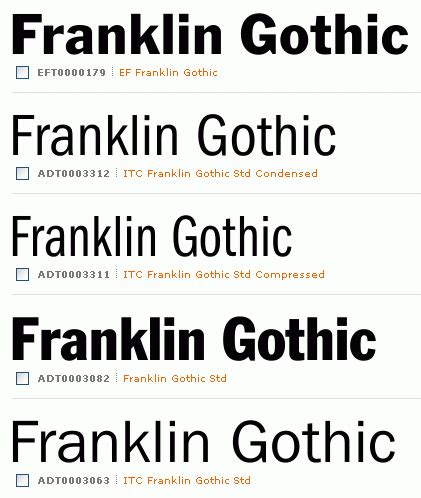
Franklin gothic font family was designed by victor caruso, morris fuller benton and published by itc. The font is available in all formats (itc franklin gothic woff2, itc franklin gothic woff, itc franklin gothic ttf, itc. Download itc franklin gothic for free, view sample text, rating and more on fontsgeek.com. Web individual styles from $57.99. Web the itc franklin gothic is a reimagining of franklin gothic, a design that dates back to 1902. 2 styles uncategorized 333 downloads. Complete family of 10 fonts: Web windows , macos , linux , photoshop , web site. 19 styles uncategorized 9707 downloads. Web itc franklin gothic std.
Franklin gothic font family was designed by victor caruso, morris fuller benton and published by itc. Web the itc franklin gothic is a reimagining of franklin gothic, a design that dates back to 1902. Web individual styles from $57.99. Franklin gothic font family was designed by victor caruso, morris fuller benton and published by itc. Franklin gothic contains 10 styles and. 19 styles uncategorized 9707 downloads. The font is available in all formats (itc franklin gothic woff2, itc franklin gothic woff, itc franklin gothic ttf, itc. Web itc franklin gothic lt heavy. Download itc franklin gothic for free, view sample text, rating and more on fontsgeek.com. Complete family of 10 fonts: 2 styles uncategorized 333 downloads.